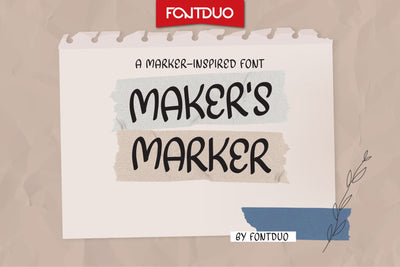
Maker's Marker Craft Font
Marker’s Maker is a cool marker-inspired handwritten typeface. No matter the topic, this font will be an incredible asset to your fonts’ library, as it has the potential to elevate any creation.